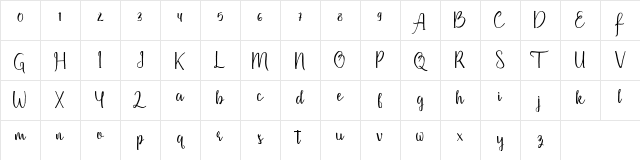
Firdaus Regular
Foundry: Hanif Syahputra
Designer: Hanif Syahputra
Design Context for Firdaus
Firdaus is a composed and adaptable typeface that performs quietly and consistently across a wide range of design contexts.